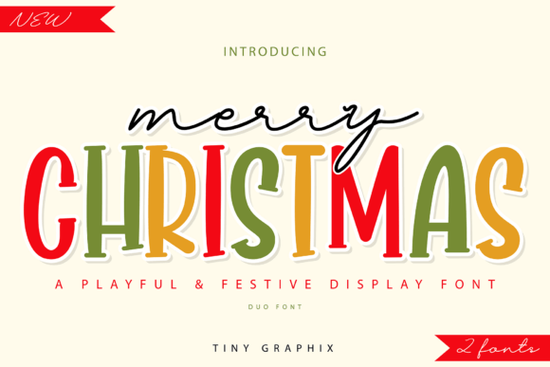
If you’re looking for a cheerful, versatile typeface that captures the spirit of the holidays without limiting you to just December, the Merry Christmas Duo Font is worth a closer look. Designed by Tiny Graphix, this font set includes two complementary styles a bold display font and a graceful script that work beautifully together or on their own across seasonal and year-round projects.
Whether you're creating holiday cards, custom mugs, social media graphics, or even Easter tags, this duo gives you flexibility without sacrificing festive charm. The playful energy of the display style pairs naturally with the soft flow of the cursive, making it easy to mix headlines and handwritten notes in one design.
What makes this font duo so practical for creators?
Many holiday fonts are overly decorative or limited to Christmas themes, but the Merry Christmas Display Font and Christmas Cursive Script are built for real-world use. Here’s how:
- Holiday-ready but not holiday-limited: While perfect for Christmas cards and ornaments, the script style works just as well for Mother’s Day quotes, fall harvest signs, or spring wedding invites.
- Craft-friendly details: Both fonts include clean outlines and consistent spacing, which helps when cutting vinyl, printing on fabric, or sublimating onto mugs and shirts.
- Easy pairing: Since they’re designed as a set, you don’t need to guess whether two fonts will match they already do.
This kind of thoughtful design saves time, especially if you run a small shop or manage multiple seasonal product lines. You’re not just buying a “Christmas font” you’re getting a reliable tool that stays useful long after the tinsel comes down.
How does it compare to other display fonts?
What sets the Merry Christmas Duo apart is its balance: it’s festive without being kitschy, and elegant without feeling stiff. That makes it especially useful for designers who want warmth and personality without overwhelming their layout.
Who should use this font set?
This duo shines for:
- Print-on-demand sellers creating holiday-themed apparel, mugs, or wall art
- Handmade crafters making gift tags, ornaments, or seasonal home decor
- Small business owners designing promotional graphics for December sales or year-end events
- Digital creators building social media templates, quote graphics, or printable planners
Even if you only design occasionally say, for family holiday cards or classroom gifts the intuitive style of both fonts means you don’t need advanced typography skills to get great results.
Tips for using the Merry Christmas Duo Font effectively
To make the most of this set:
- Use the display font for headlines it’s bold and attention-grabbing, ideal for “Merry Christmas” banners or product titles.
- Reserve the script for personal messages, like “Love, Grandma” on a gift tag or a heartfelt note inside a card.
- Avoid over-layering: since both fonts have character, stick to one per line unless you’re intentionally contrasting them (e.g., a bold header above a delicate script subhead).
- Test printability: if you’re using it for physical products, check how fine details render at small sizes especially in the script.
And remember: while it’s called “Merry Christmas,” the cursive script has neutral enough letterforms to feel at home in non-holiday contexts. Try it on a spring bridal shower invite or a cozy fall quote you might be surprised how well it fits.